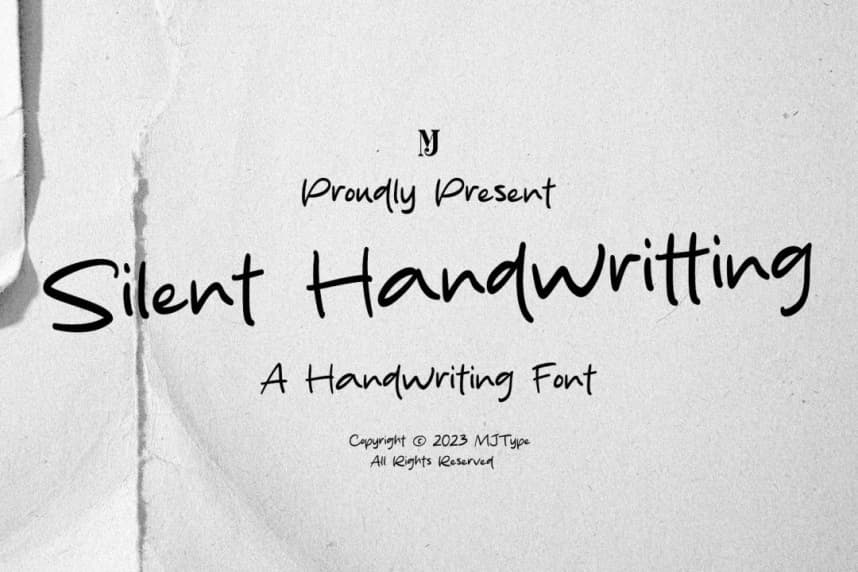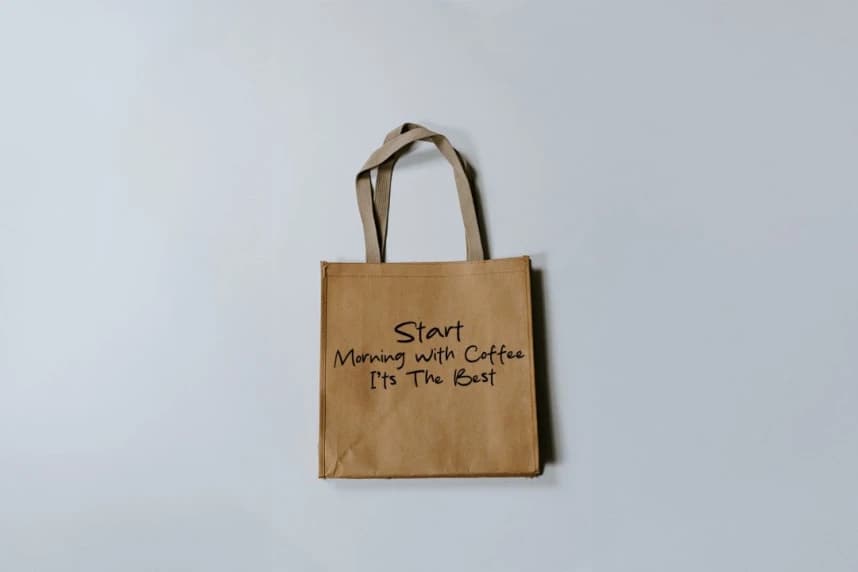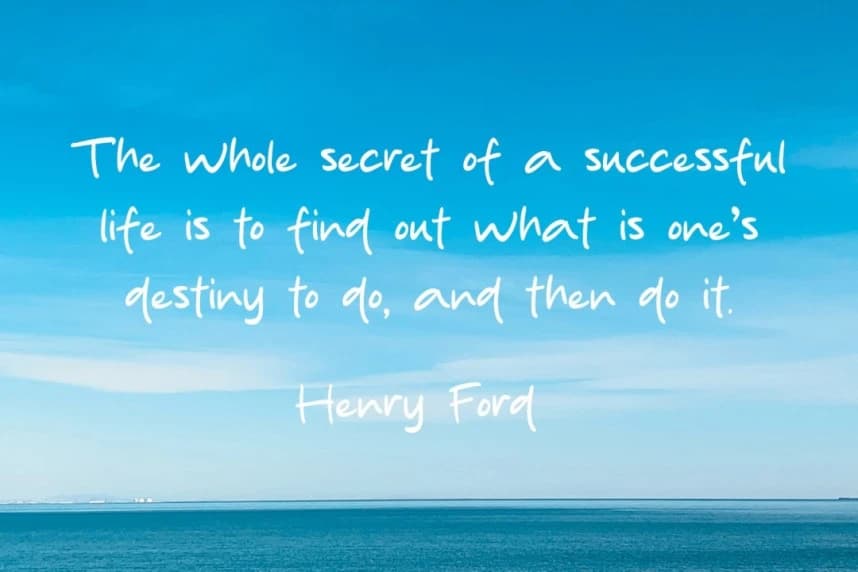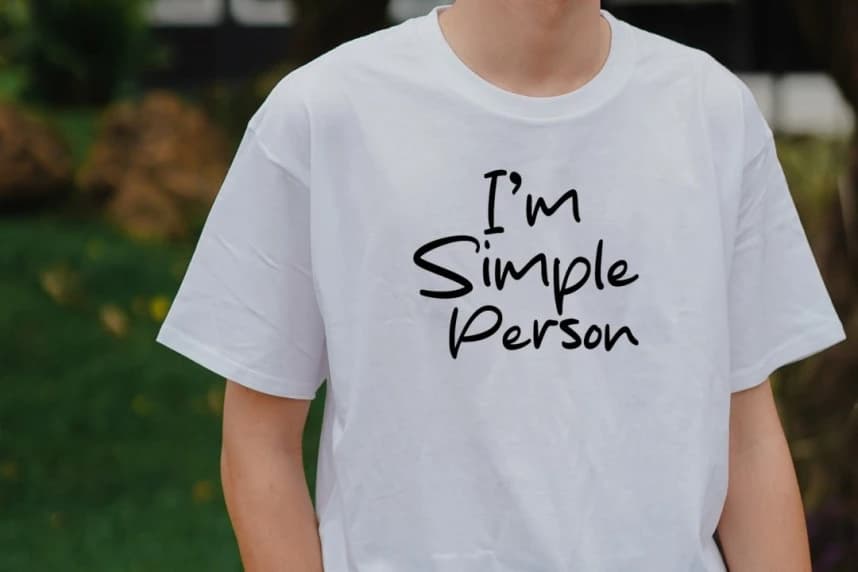
Silent Handwritting Font
Silent Handwritting Font is a beautiful handwritten script font that captures the natural elegance of authentic handwriting. Featuring smooth curves, flowing strokes, and a relaxed personal touch, this typeface creates a warm and charming aesthetic perfect for creative and modern designs.